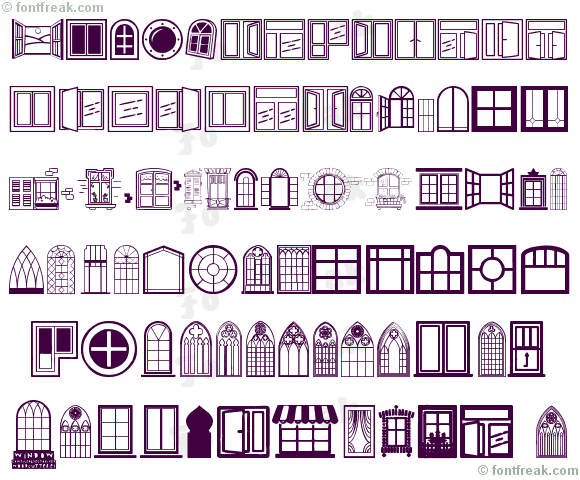
Window
About Window
The Window font, crafted by woodcutter Manero, is a distinctive decorative typeface that draws inspiration from the intricate designs often found in architectural window frames. This freeware font showcases a unique blend of artistic flair and functionality, making it a compelling choice for various creative projects. Characterized by its medium to heavy stroke weight and a balanced contrast, the Window font features well-defined lines and shapes that evoke a sense of craftsmanship and detail. The spacing between characters is thoughtfully designed, allowing for clear readability while maintaining its decorative charm.
The Window font is particularly well-suited for use in wedding invitations, where its elegant and artistic style can add a touch of sophistication. It also shines in movie posters, bringing a dramatic visual appeal that captures attention. Restaurant menus can benefit from its unique character, providing a memorable aesthetic that enhances the dining experience. Additionally, it works wonderfully for home decor labels or signage, creating an inviting atmosphere that resonates with warmth and creativity.
Targeted towards graphic designers, small business owners, and content creators, the Window font serves as an excellent tool for those looking to elevate their branding or design projects. Its versatility makes it an ideal choice for anyone wanting to make a statement through typography.
In conclusion, the Window font stands out due to its intricate design elements that reflect a fusion of art and functionality. Its ability to transform ordinary text into captivating visuals makes it a valuable asset for any design toolkit. For those interested in exploring this unique typeface, a Window font free download is readily available, allowing users to incorporate its charm into their work effortlessly.